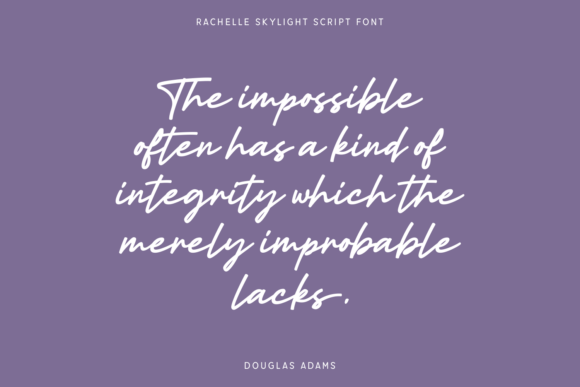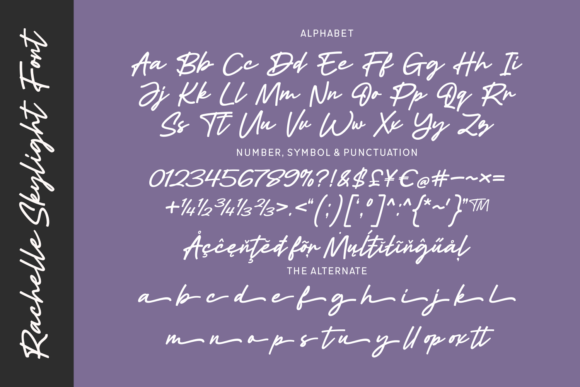
Introduction to Rachelle Skylight Font
Rachelle Skylight is a stylish modern script font that features elegant, flowing letters.
It has a friendly and casual feel, making it perfect for invitations, logos, and creative projects The smooth curves and varied letter sizes give it a unique and artistic touch.
Key Features of Rachelle Skylight Font